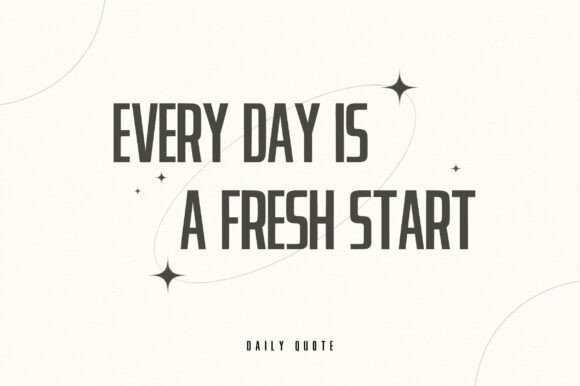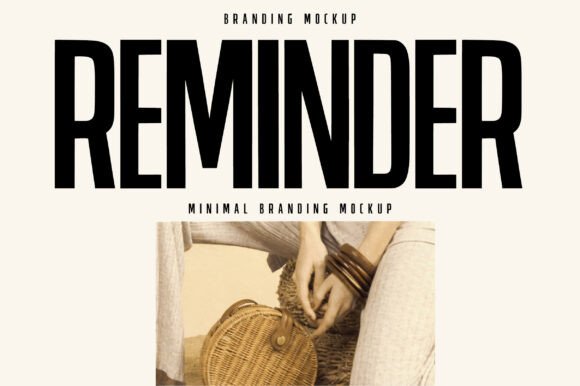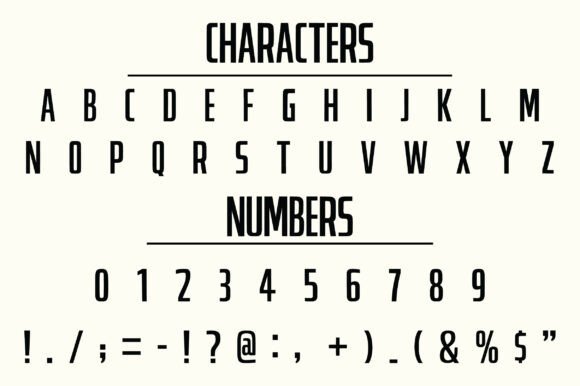
Introduction to Bold Block Font
Bold Block is a bold condensed display typeface with a strong and modern look.
Designed for impact, it works perfectly for headlines, branding, posters, logos, packaging, and social media designs With tall letterforms and clean shapes, Bold Block adds confidence and clarity to any creative project.
Bold Block Font offers exceptional quality and versatility, making it a valuable addition to your design toolkit. Whether you’re creating for personal projects or commercial use, Bold Block Font delivers professional results.